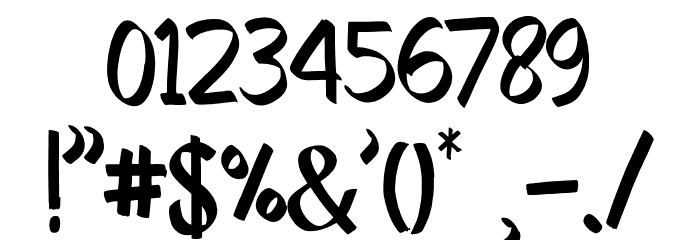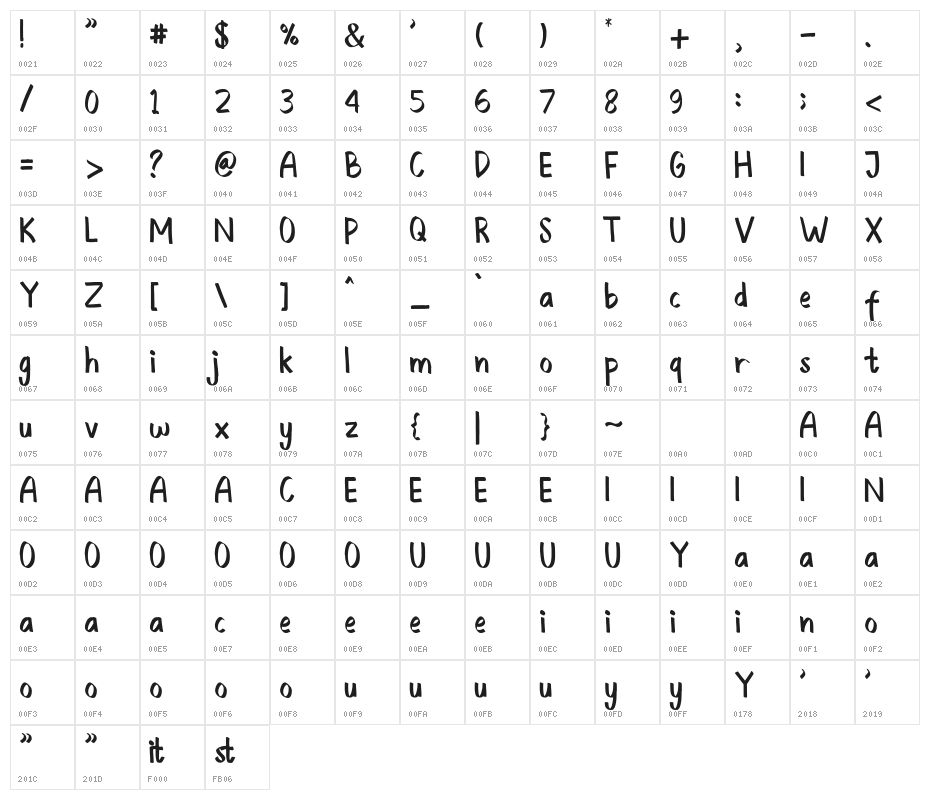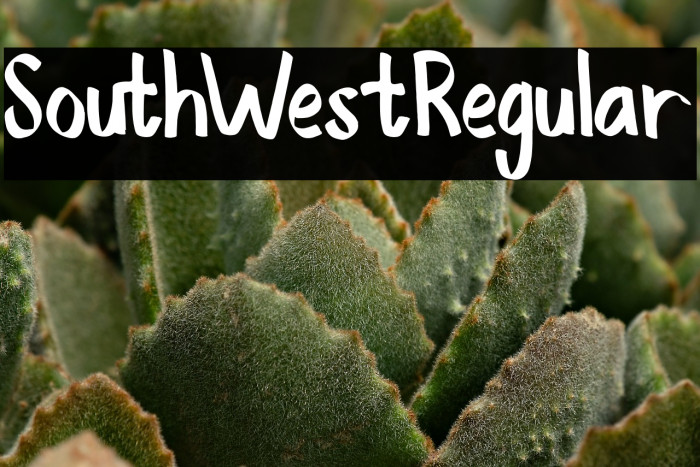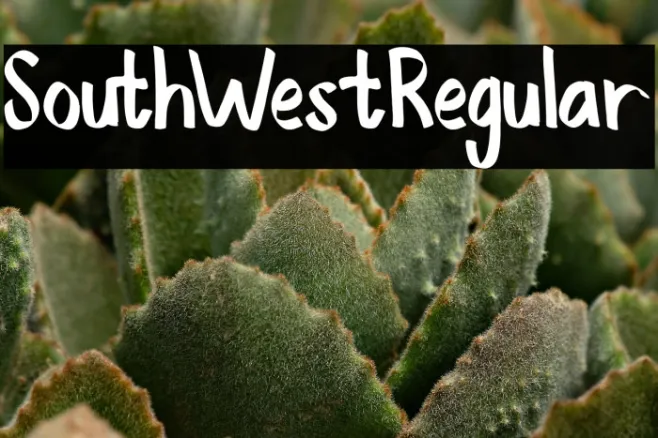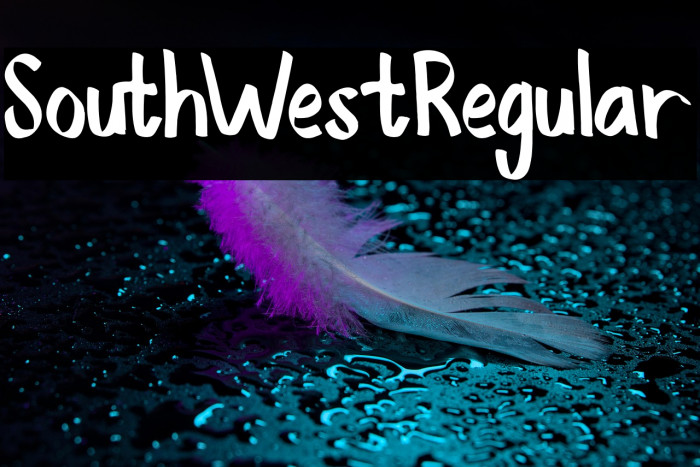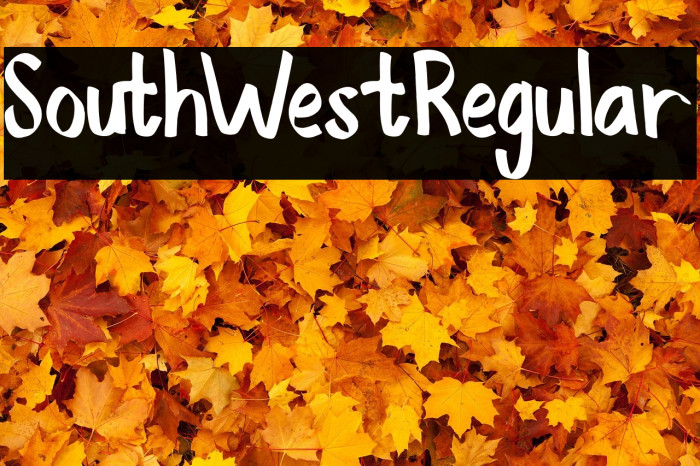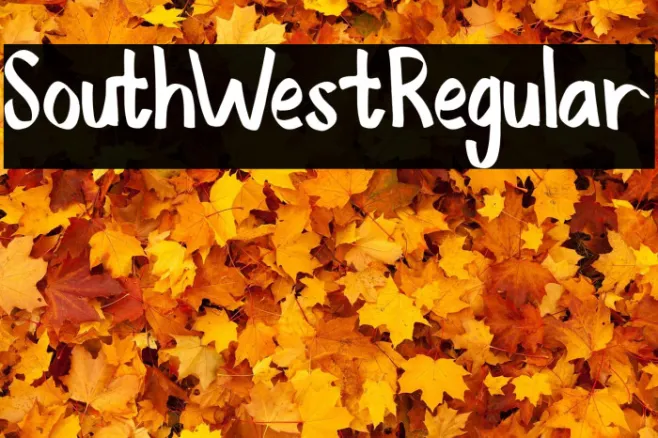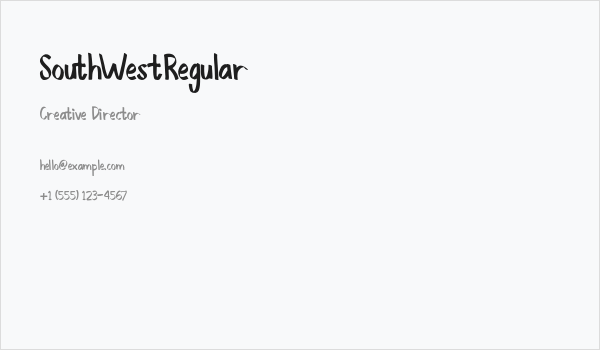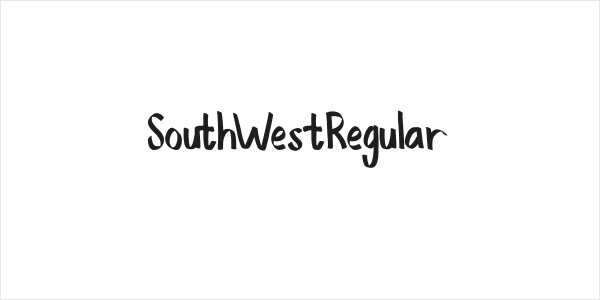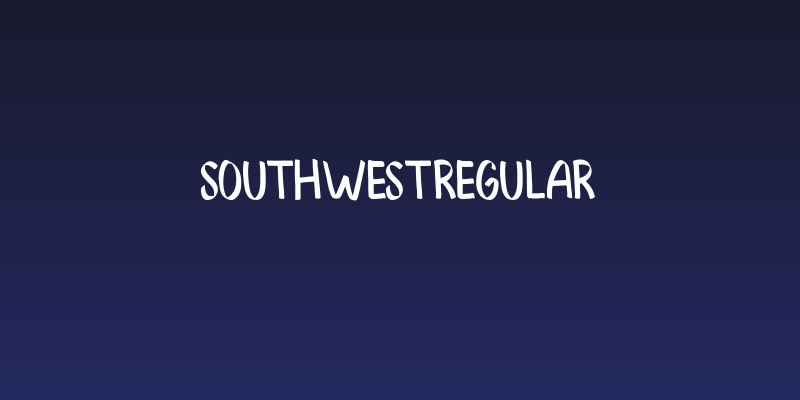
SouthWestRegular Font
SouthWestRegular Description
This font features a playful and casual handwritten style, characterized by its bold and slightly irregular letterforms. The uppercase and lowercase letters maintain a consistent flow, with rounded edges and a friendly appearance. The numerals and special characters complement the overall style, adding to its informal and approachable feel. The font's design is versatile, making it suitable for a variety of creative projects that require a personal touch.
| Proposed Projects | Ideal for greeting cards, children's books, playful branding, and social media graphics. |